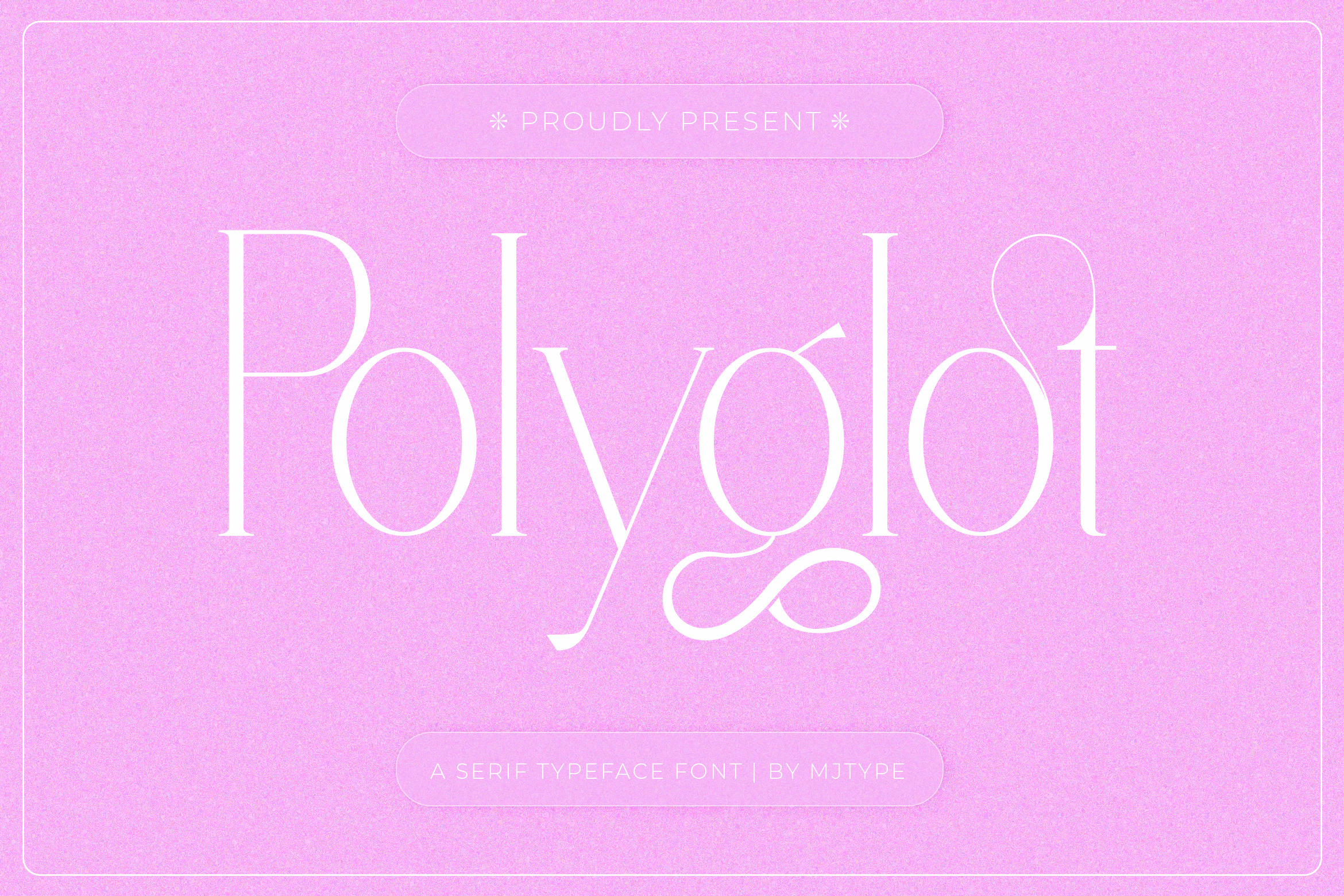
Polyglot - Typeface
Introducing Polyglot Typeface, a unique and stylish font that features numerous ligatures for uppercase and lowercase characters. This font supports multiple languages and boasts a minimalist and elegant design, with straight lines that are beautifully complemented by subtle curves. Use Polyglot Typeface to create sophisticated logos and add elegance to your next project's headlines, logo designs, posters, t-shirts, and business cards.